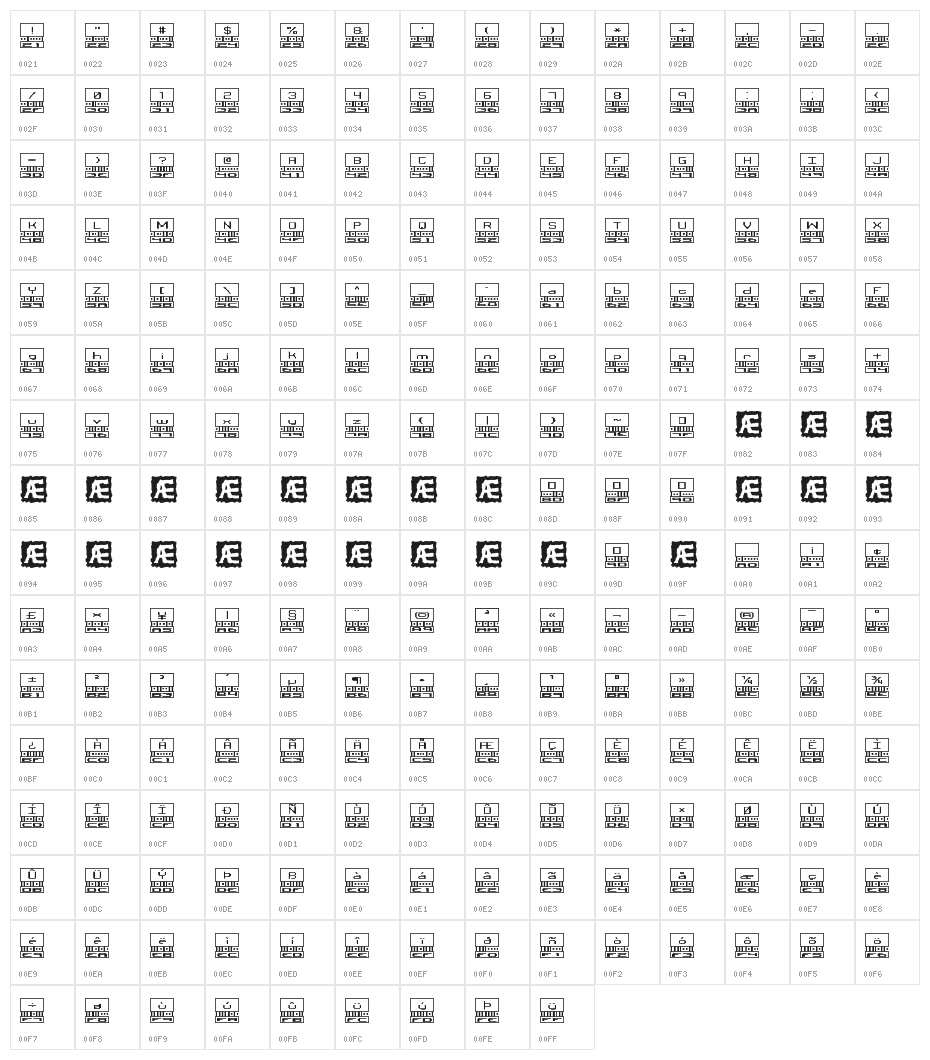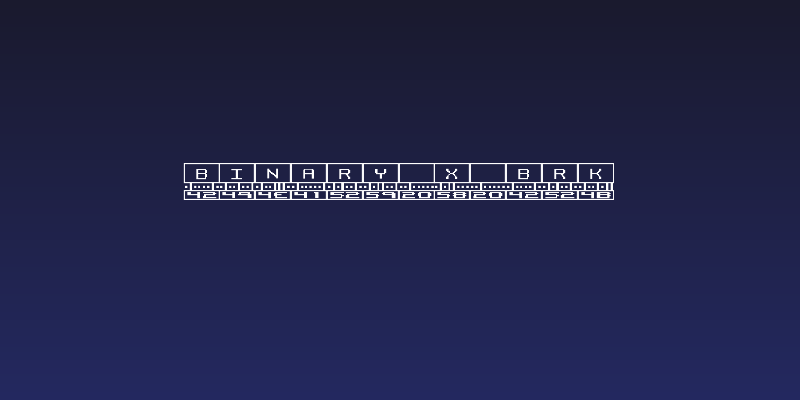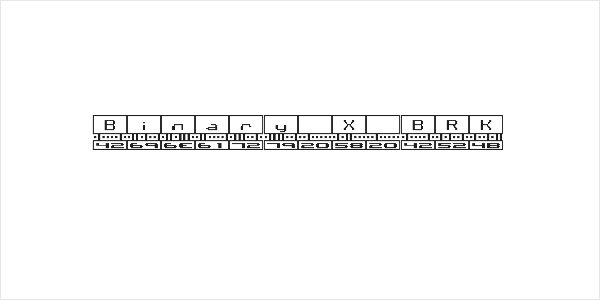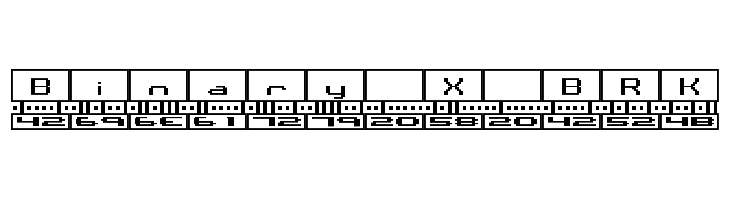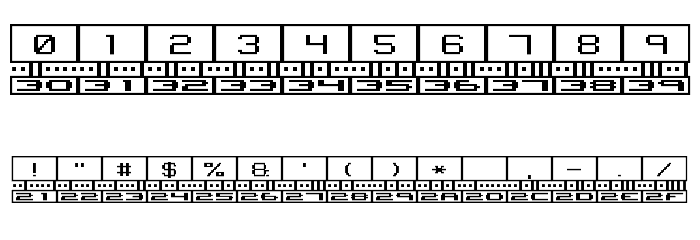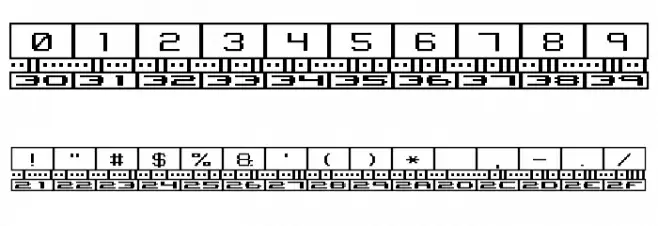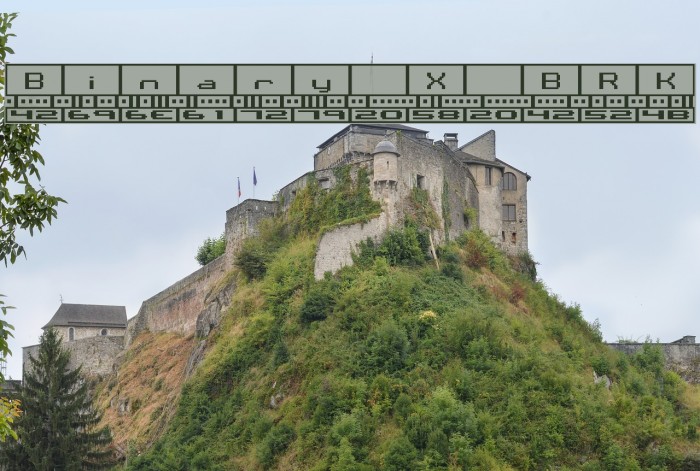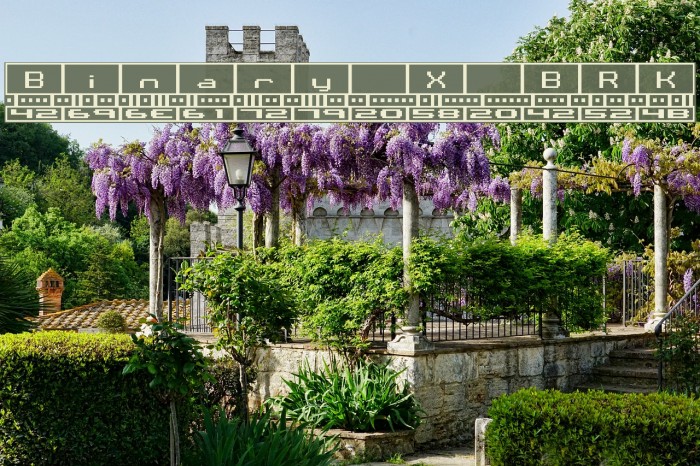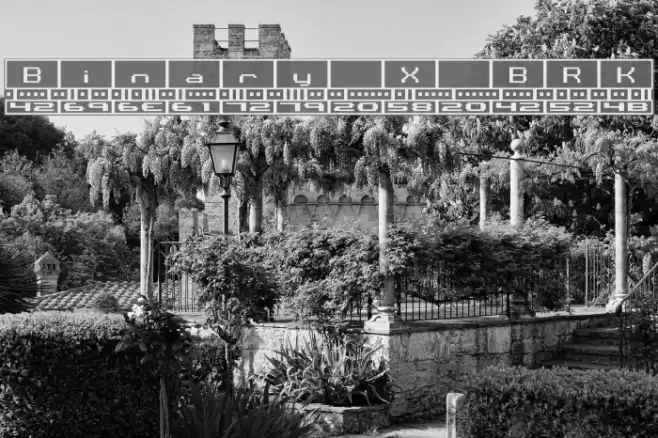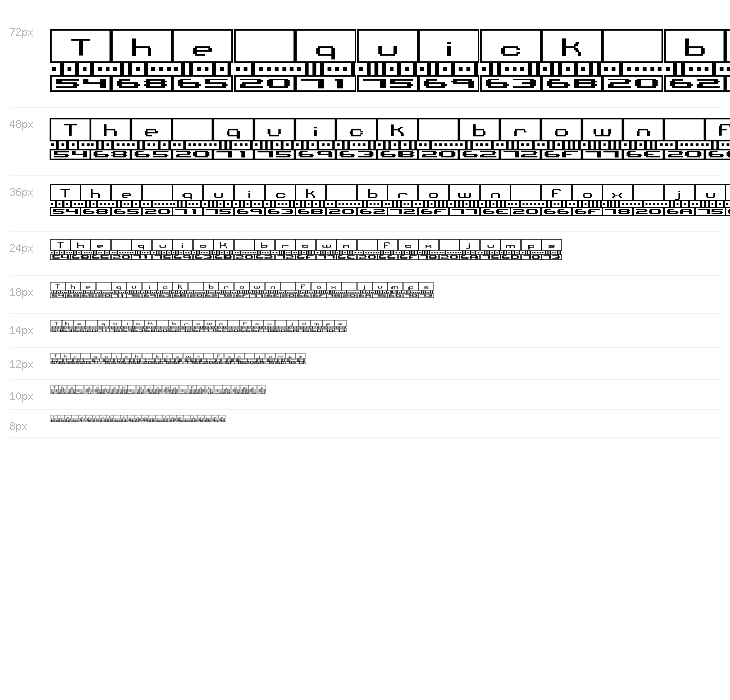
Binary X BRK Font
Binary X BRK Description
This font features a unique design that combines a digital, binary aesthetic with a structured, geometric form. Each character is enclosed in a rectangular box, reminiscent of a digital display or a computer interface. The characters are composed of a series of horizontal and vertical lines, creating a pixelated effect that is both modern and retro. The font is highly stylized, with a distinct emphasis on symmetry and alignment, making it ideal for projects that require a futuristic or technological theme. The consistent use of binary-like patterns across all characters adds a cohesive and uniform appearance, suitable for digital art, coding projects, or tech-themed designs.
| Use Case | Logos, Headlines, Digital interfaces |
| Proposed Projects | Ideal for tech-themed designs, digital art, coding projects, and futuristic displays. |